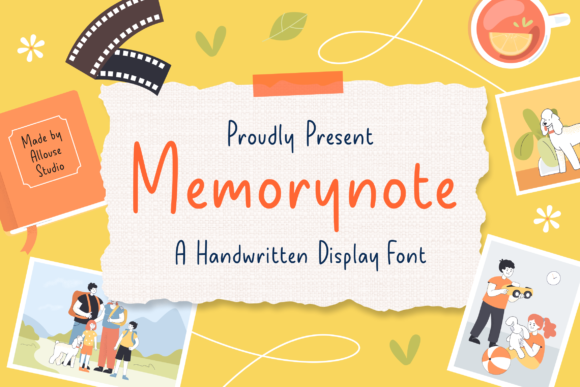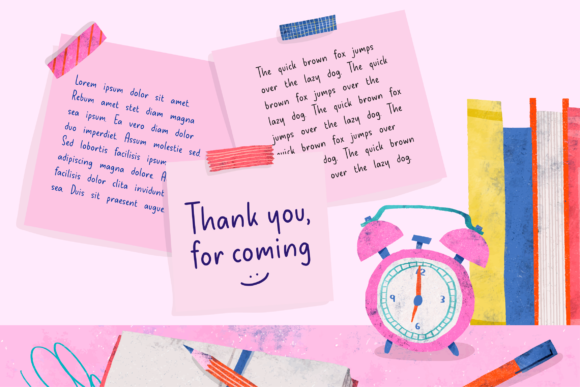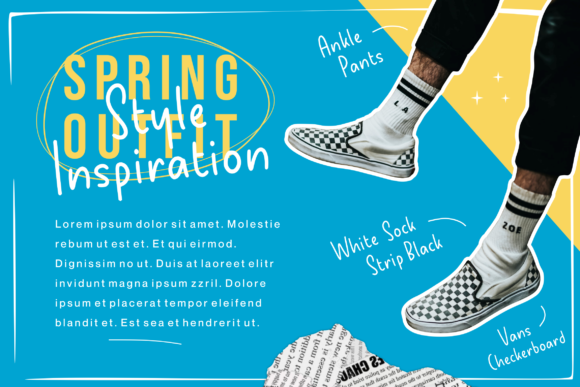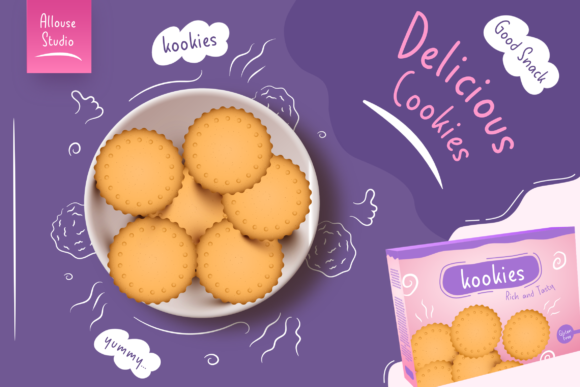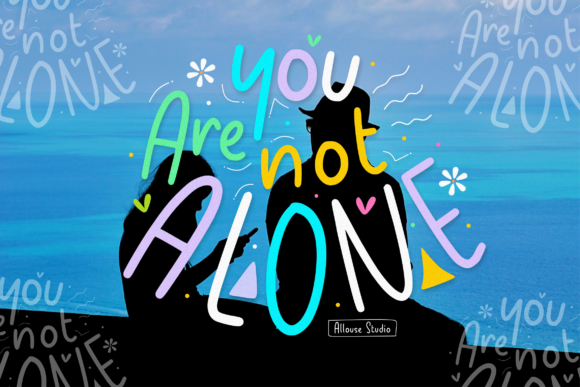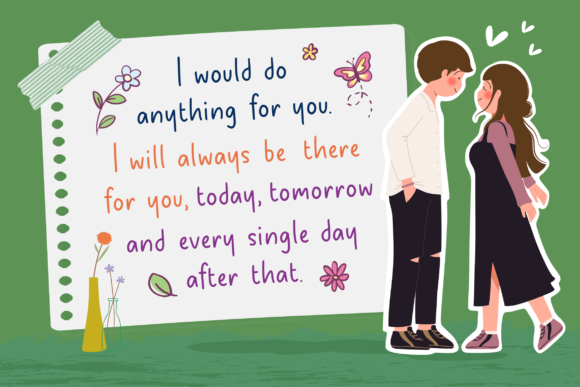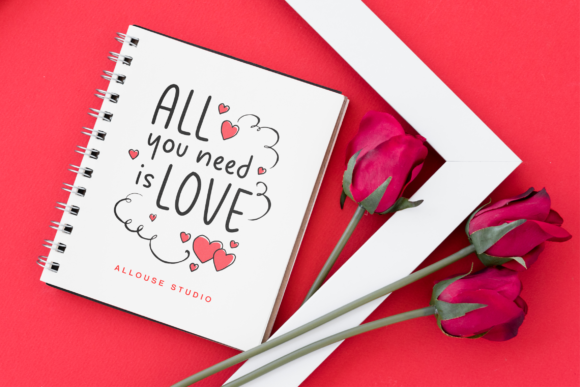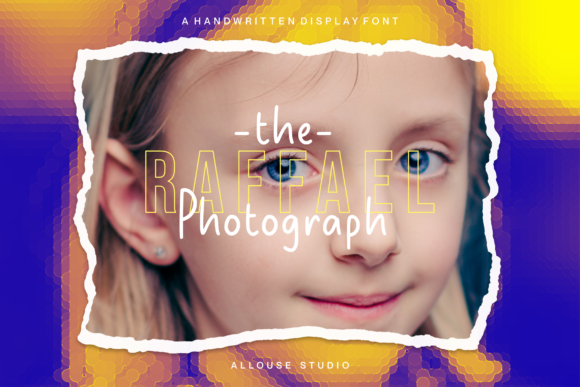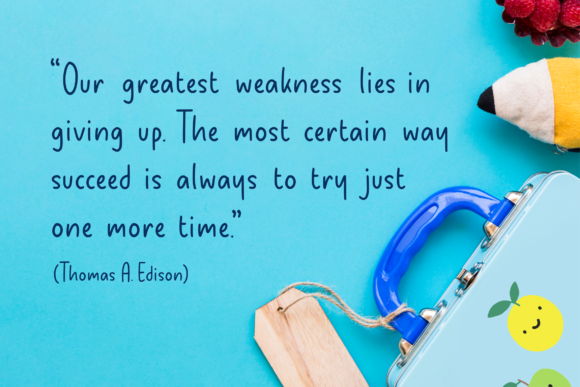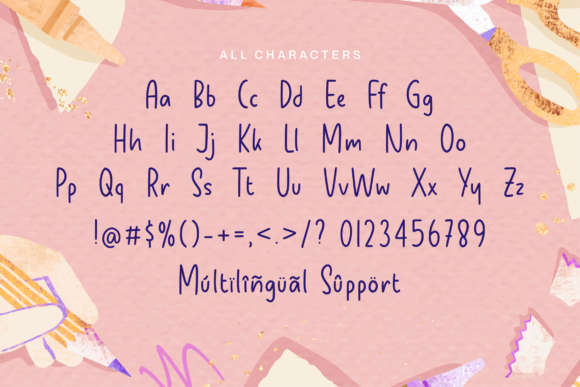
Memorynote Font
About Memorynote Font
This font exudes a delightful combination of charm and elegance, making it a versatile choice for a variety of design projects. Its ability to strike a balance between these two qualities makes it particularly stunning on a wide range of applications, including wedding invitations, thank you cards, quotes, greeting cards, logos, business cards, and any other design that benefits from a handwritten touch.
The charm and elegance of this font come together harmoniously, creating a visual appeal that is both inviting and sophisticated. This balance makes it well-suited for enhancing the aesthetics of wedding invitations, setting a tone of warmth and grace for the special occasion.
Whether used for thank you cards or quotes, the font adds a handwritten touch that brings a sense of authenticity and personalization to the messages. Its elegant strokes and charming details contribute to making these designs visually striking and emotionally resonant.
In the realm of greeting cards, logos, and business cards, this font stands out by imparting a distinctive and handwritten flair. It adds a touch of personality to branding elements, making them more memorable and creating a lasting impression on the audience.
The font’s versatility extends to various design contexts, allowing it to complement a wide range of projects that require a handwritten aesthetic. Its charming and elegant qualities make it adaptable to diverse visual styles, ensuring that it enhances the overall appeal of the design.
In summary, this font brings a perfect blend of charm and elegance, making it a captivating choice for those seeking a handwritten touch in their designs. Its versatility allows it to shine across different applications, from wedding invitations to business cards, adding a touch of warmth and sophistication to every project it graces.